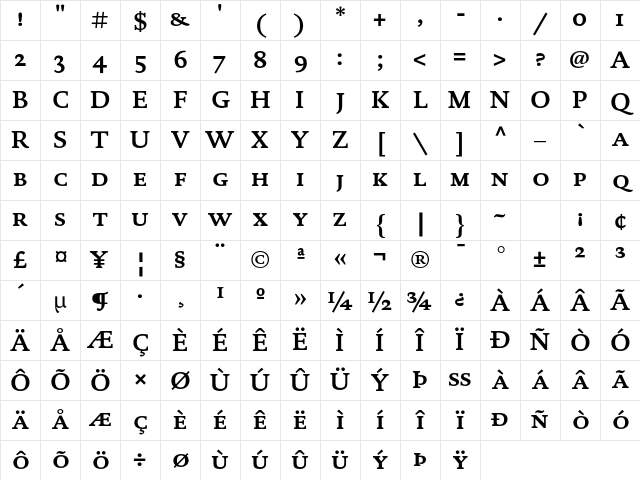
DTL Documenta T Caps Bold
Style: T Caps Bold
DTL Documenta Family
DTL Documenta T Caps Bold
Design Context for DTL Documenta
DTL Documenta is a composed and adaptable typeface that performs quietly and consistently across a wide range of design contexts. Its bold stroke weight gives it real presence on the page.